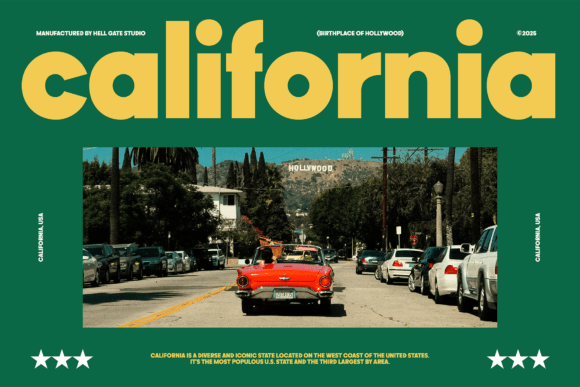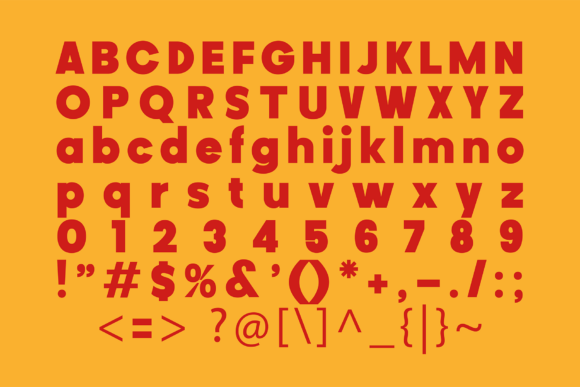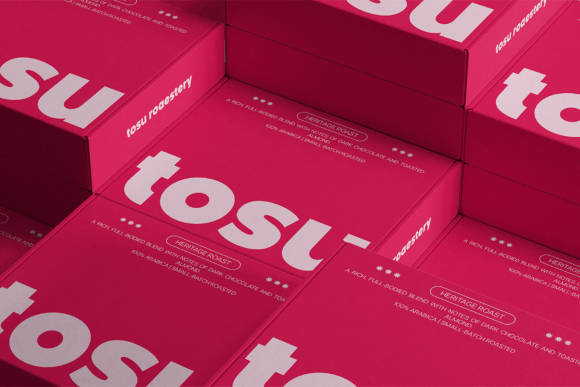
Unleash the Power of Dana Font: Elevate Your Designs with Expressive Dynamism
In the world of typography, a font can make or break a design. It’s the foundation upon which the entire visual identity is built. For designers and crafters seeking a bold and elegant theme, Dana font is an exceptional choice. This meticulously crafted bold Sans Display font is designed to infuse your compositions with an air of sophistication and dynamism.
The Dana Font Advantage
Dana font boasts a bold attitude that effortlessly elevates any design. Its high-quality render epitomizes design precision, ensuring that your text is crisp and clear. What sets Dana apart is its seamless text and color editing capabilities, making it an ideal choice for designers who value flexibility and precision.
Experience Impeccable Harmony
The Dana font brings an impeccable harmony of sophistication and boldness to your designs. Its elegant theme is perfect for a wide range of applications, from branding and advertising to packaging and digital media. Whether you’re looking to create a bold statement or add a touch of elegance, Dana font is the perfect tool for the job.
Key Features of Dana Font
- Meticulously crafted bold Sans Display font: Dana font is designed to make a statement with its bold and elegant theme.
- High-quality render: Enjoy crisp and clear text with Dana font’s high-quality render.
- Seamless text and color editing capabilities: Edit your text and colors with ease, thanks to Dana font’s user-friendly design.
Applications of Dana Font
Dana font is versatile and can be used in a variety of applications, including:
- Branding and advertising: Create bold and eye-catching logos, billboards, and ad campaigns with Dana font.
- Packaging design: Add a touch of elegance to your product packaging with Dana font.
- Digital media: Use Dana font to create engaging social media graphics, website headers, and more.
Why Choose Dana Font?
With so many fonts available, why choose Dana font? Here are just a few reasons:
- Unique and expressive design: Dana font is designed to make a statement and add a touch of dynamism to your designs.
- High-quality render: Enjoy crisp and clear text with Dana font’s high-quality render.
In conclusion, Dana font is an exceptional choice for designers and crafters seeking a bold and elegant theme. Its meticulously crafted design, high-quality render, and seamless text and color editing capabilities make it the perfect tool for elevating your designs. Experience the impeccable harmony of sophistication and boldness that Dana font brings – download it today!